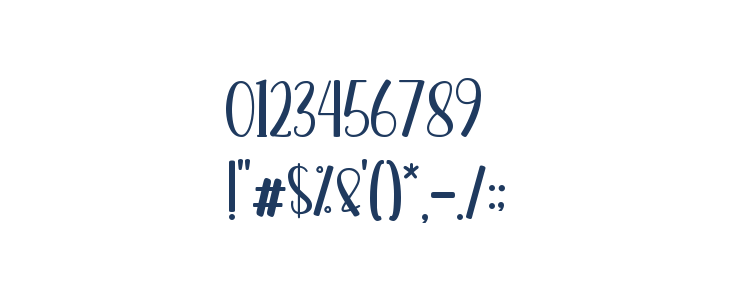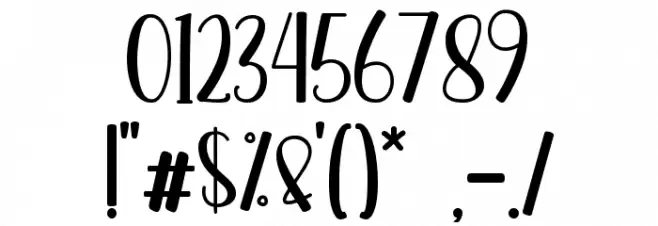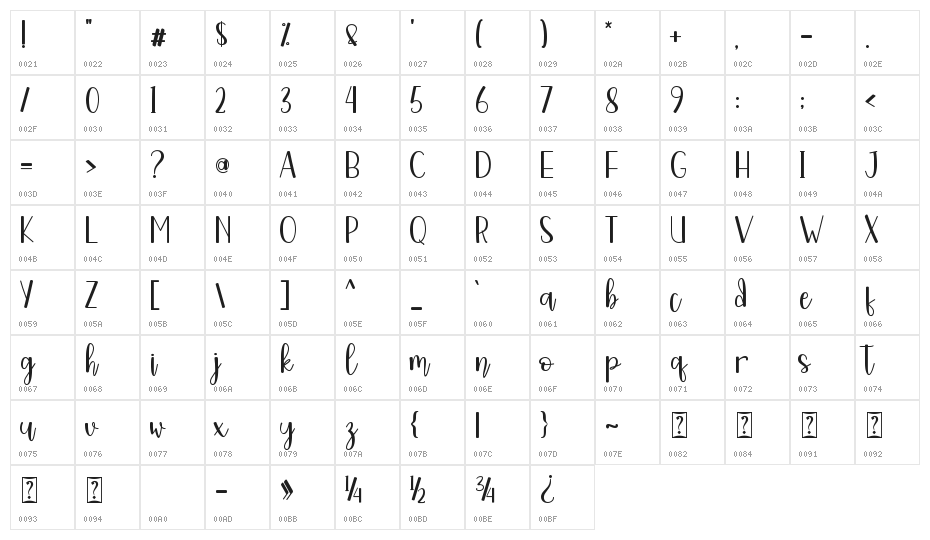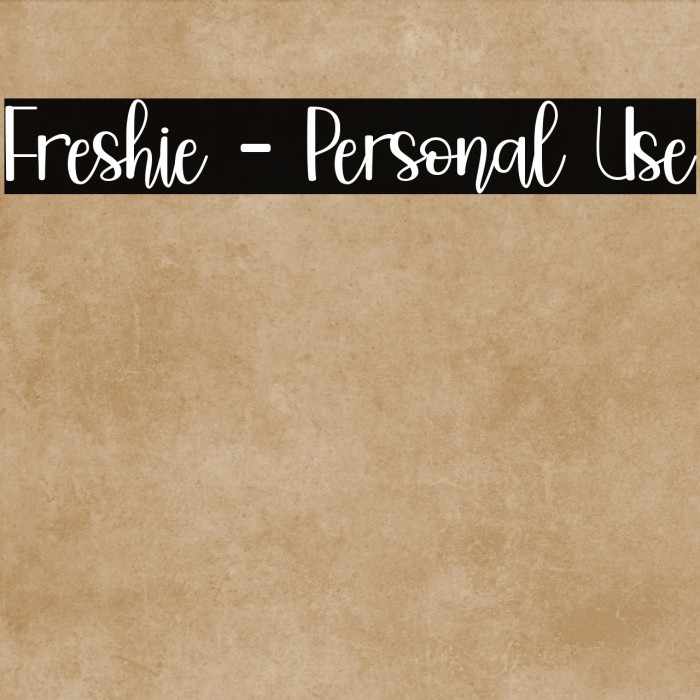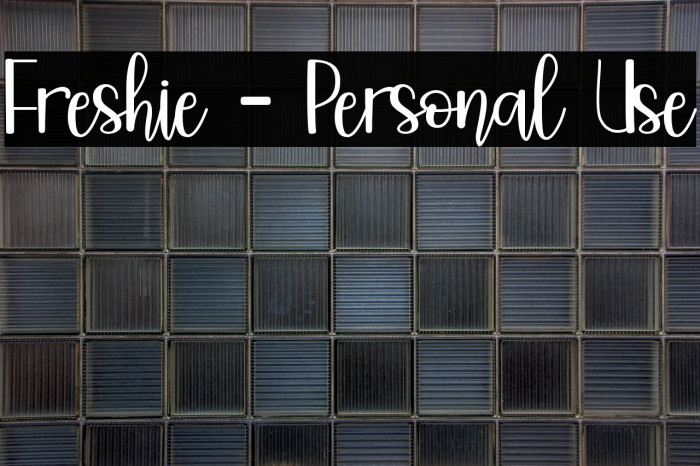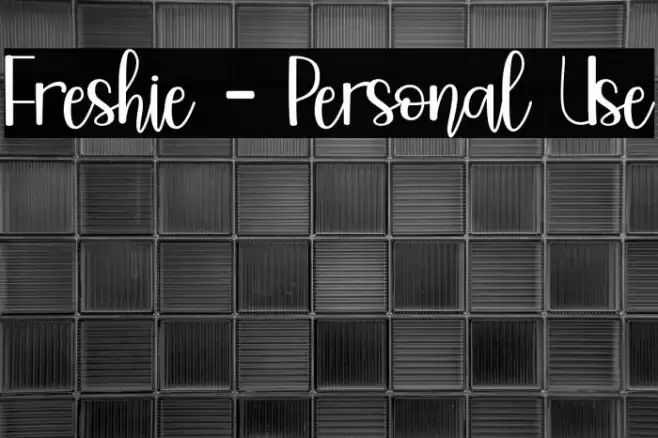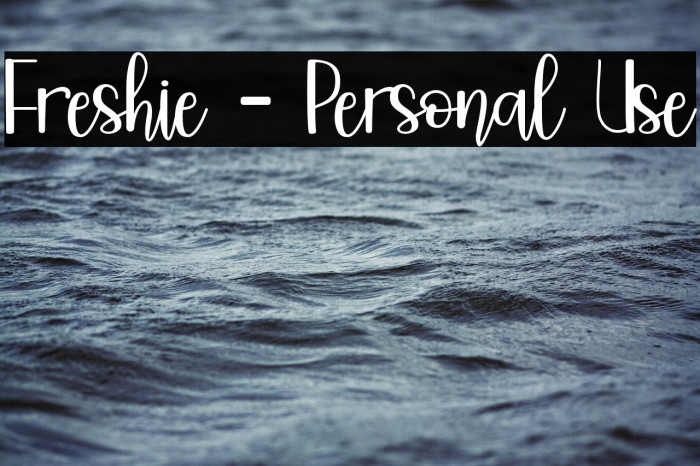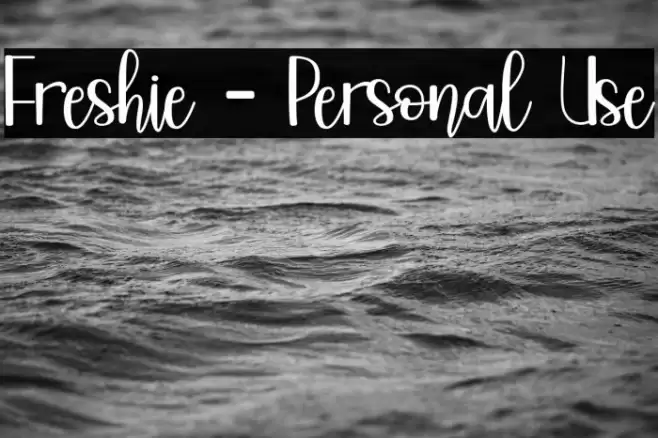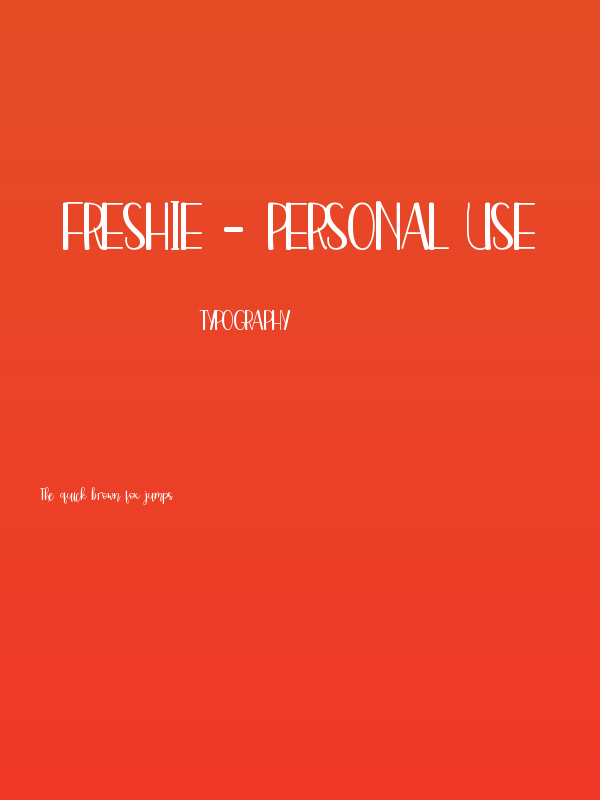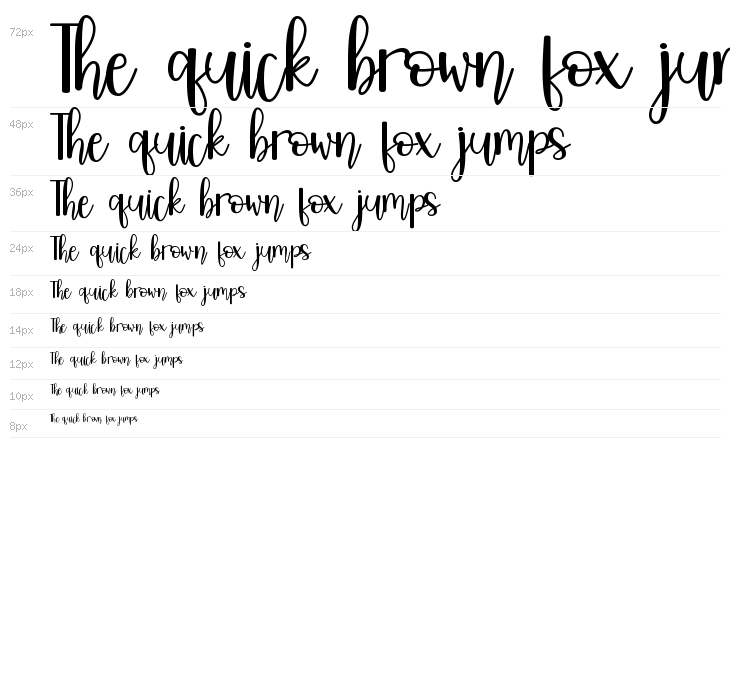
Freshie - Personal Use Font
Freshie - Personal Use Description
This font features a playful and whimsical style, combining elements of both script and sans-serif. The uppercase letters are tall and narrow with a slight slant, giving them a modern and elegant appearance. The lowercase letters are more fluid and connected, reminiscent of casual handwriting, adding a personal touch. The numbers are consistent with the uppercase style, maintaining clarity and readability. Special characters are creatively designed, fitting seamlessly with the overall aesthetic. This font's unique blend of styles makes it versatile for various design projects.